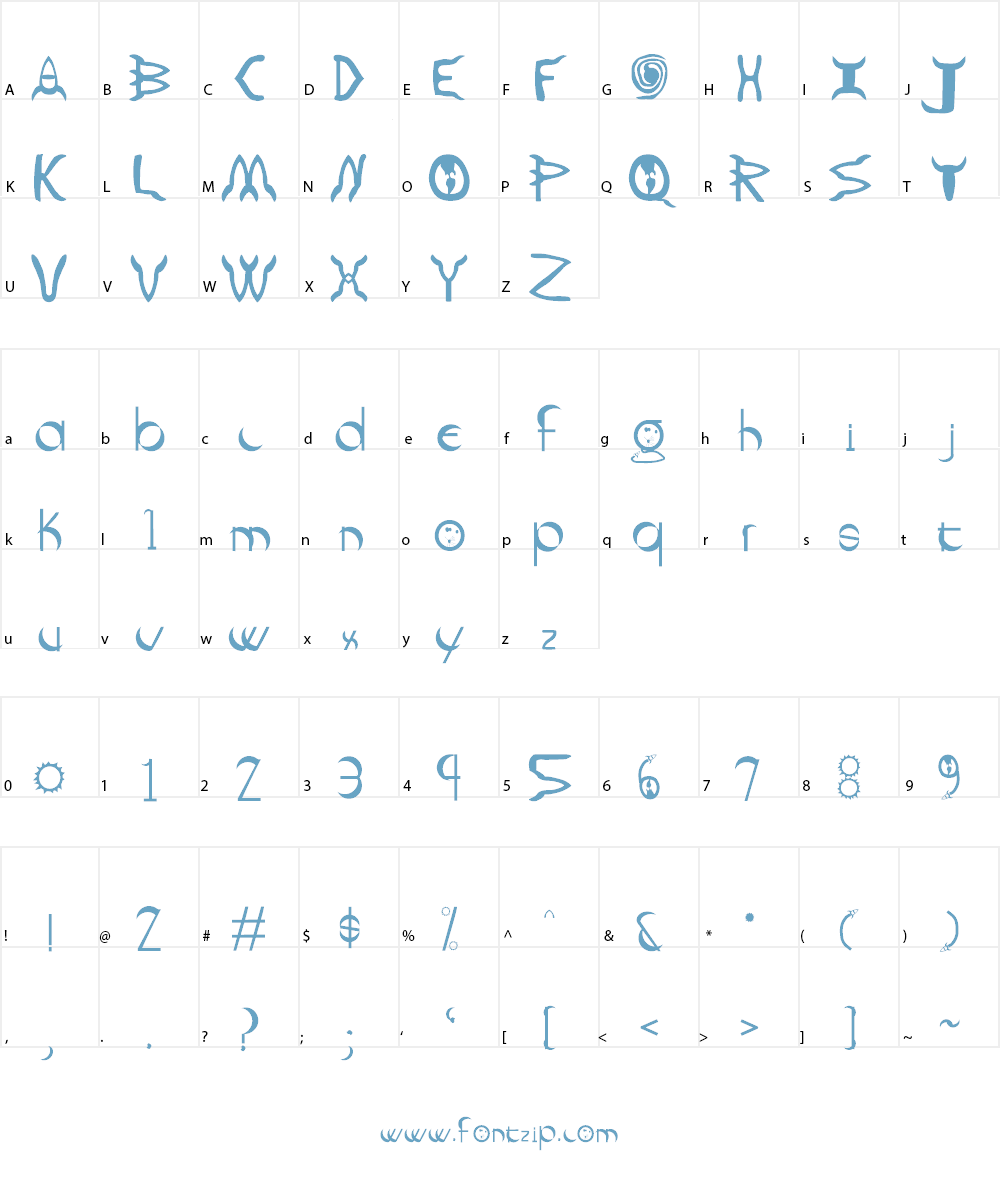
This is a font meant to evoke space travel. I started with a capital
A based on the shape of a 1950s rocket, and went from there. The
capital O is the Earth; the lowercase o is the Moon; the lowercase c
is a crescent moon...and many other characters are based on those
four.